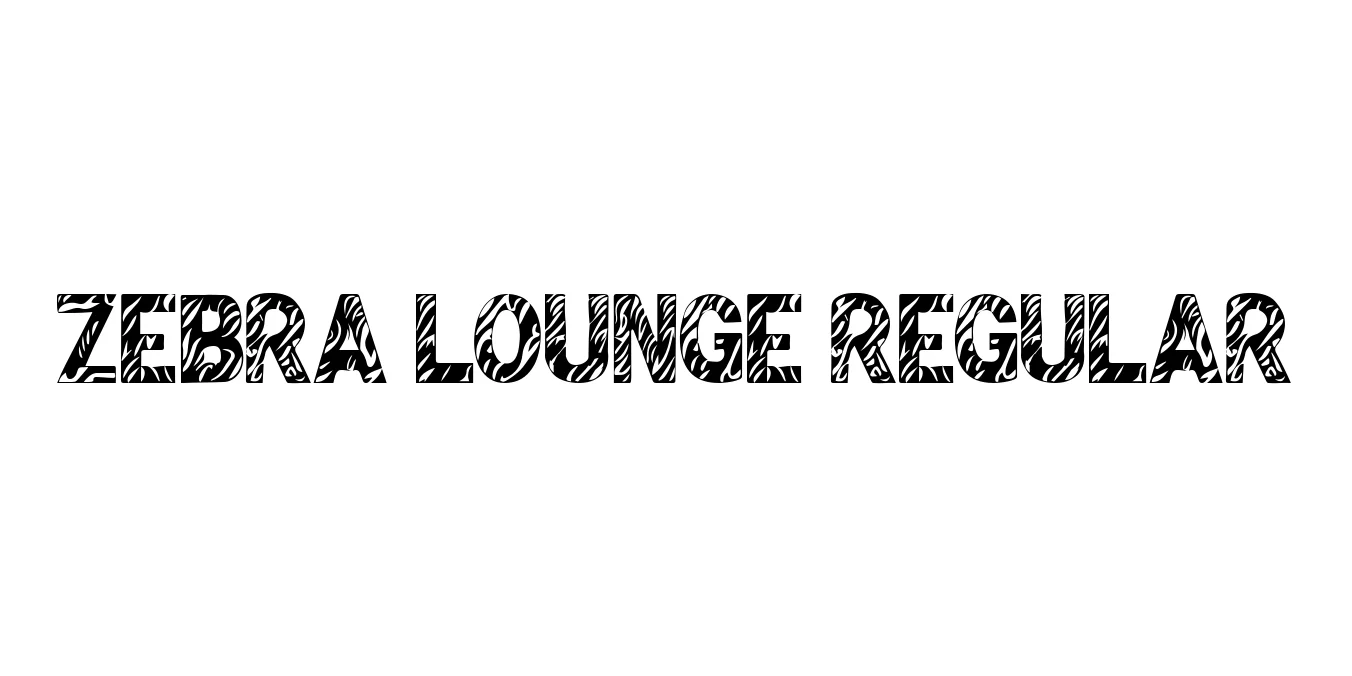
Zebra Lounge Regular
Designed by Inspiratype
Zebra Lounge Regular is a sophisticated display typeface inspired by the glitzy and glamorous era of mid-century nightlife and vintage jazz clubs. This font features distinctive, high-contrast strokes and elegant geometric shapes that evoke a sense of luxury and rhythmic movement. Its bold presence makes it an ideal choice for projects that require a touch of retro charm combined with modern legibility, bridging the gap between historical elegance and contemporary design needs.
Developed with versatility in mind, the Zebra Lounge family excels in high-impact scenarios such as branding, editorial titles, and event signage. The typeface carries a unique personality that works exceptionally well for the hospitality industry, particularly for boutique hotels, bars, and upscale restaurants. Whether used for a minimalist logo or a vibrant promotional poster, this font provides a strong visual identity that captures the essence of a bygone era of style and sophistication.
Zebra Lounge Regular Best Uses
Perfect for creating sophisticated and memorable brand identities.
Ideal for jazz nights, gala events, and retro-themed parties.
Adds a touch of class to upscale restaurant and cocktail lounge menus.
Works beautifully for headlines in fashion or lifestyle magazines.